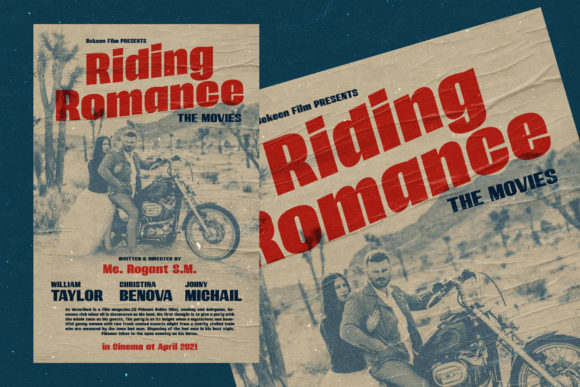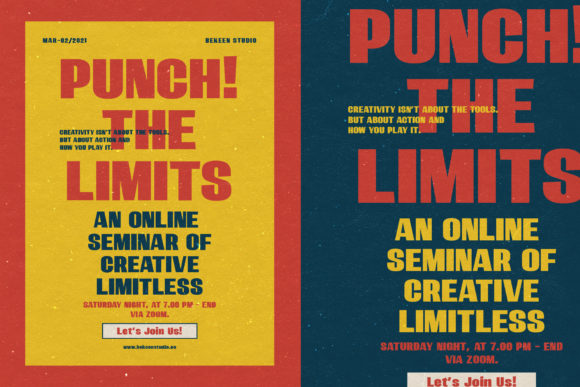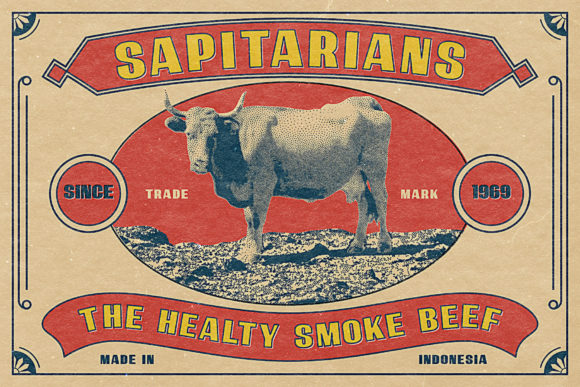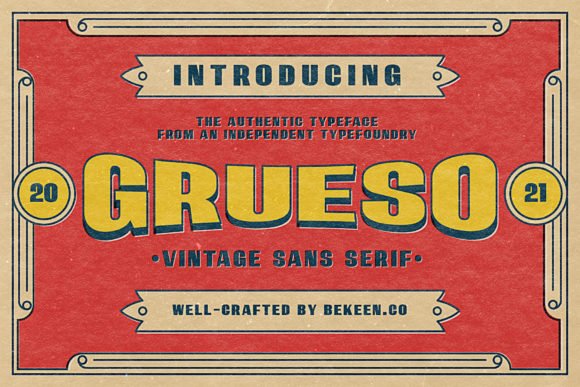
Introduction to Grueso Font
Grueso is a bold sans serif font with a vintage feel.
Use this font for any crafting project that requires a personalized look .
Key Features of Grueso Font
Why Choose Grueso Font?